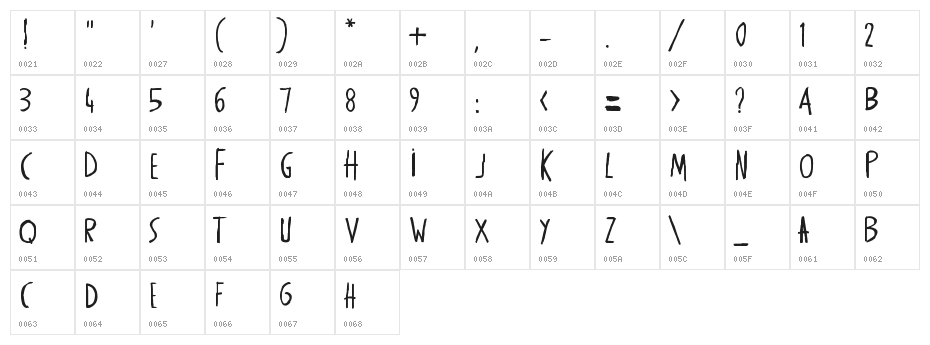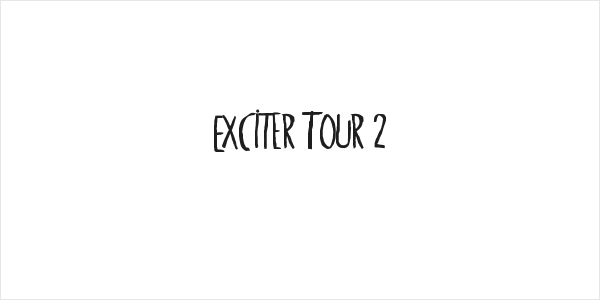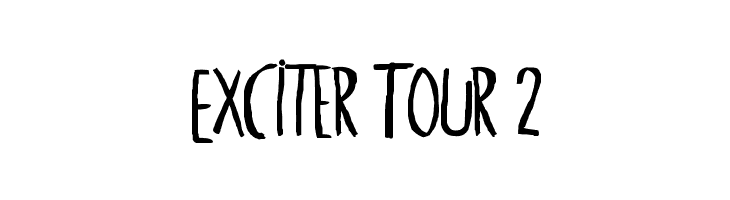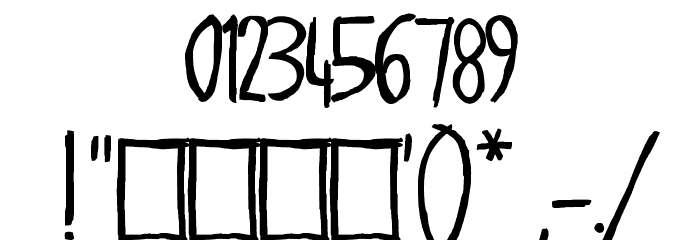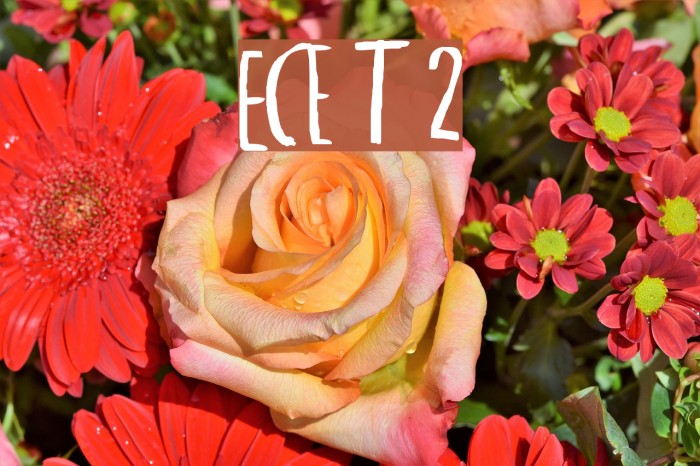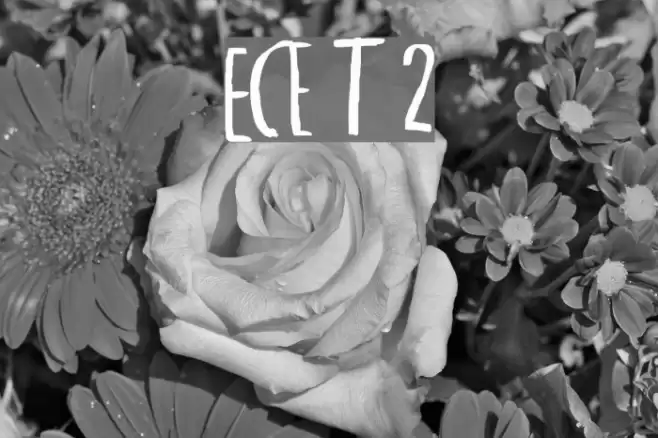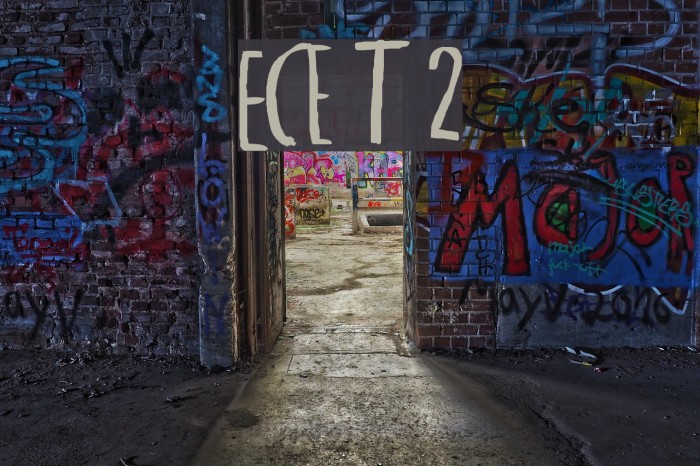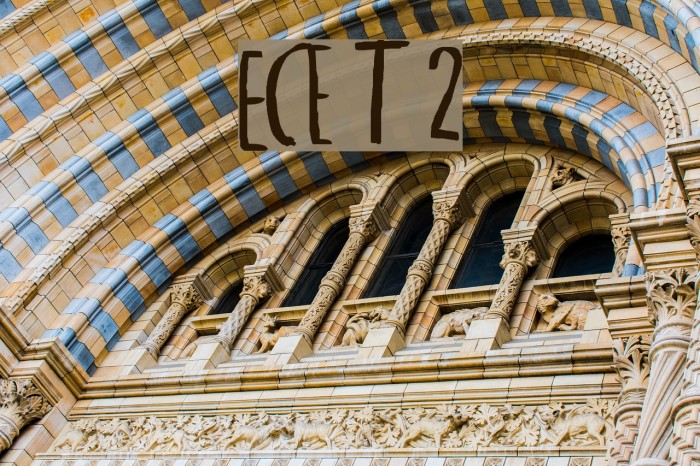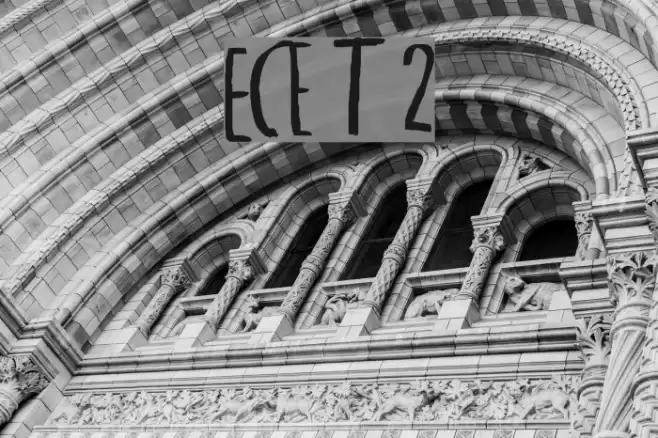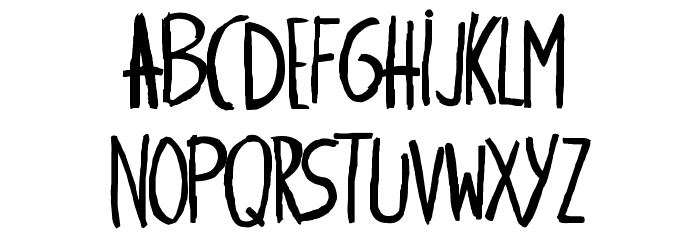
Exciter Tour 2 Font
Exciter Tour 2 Description
This font features a bold, hand-drawn style with a playful and energetic appearance. The letters are slightly irregular, giving it a casual and informal feel. The uppercase and lowercase characters maintain a consistent height, contributing to a cohesive look. The numbers are clear and legible, matching the overall style of the alphabet. Special characters are included, adding versatility for various uses. The strokes are thick and consistent, providing a strong visual impact. This font is ideal for projects that require a personal touch or a dynamic, youthful vibe.